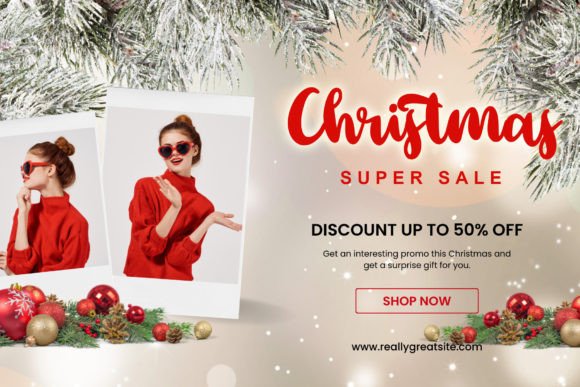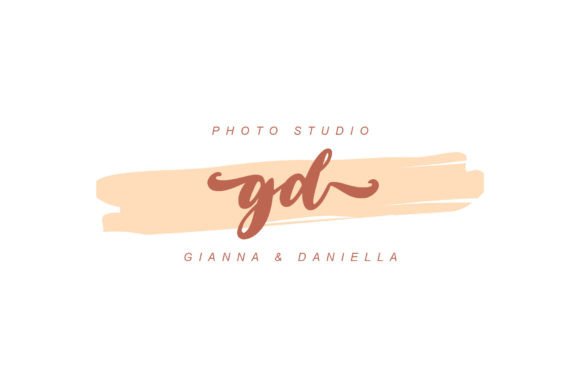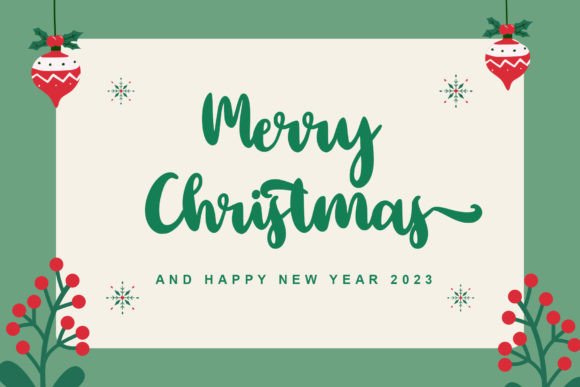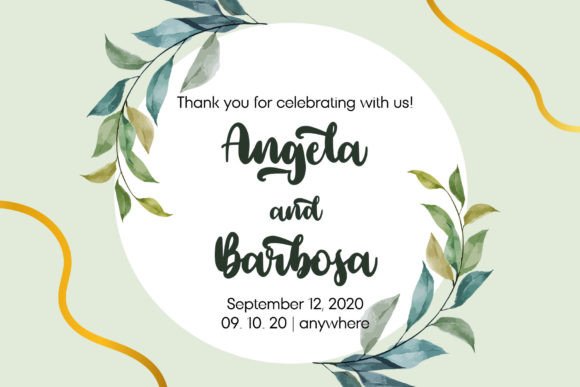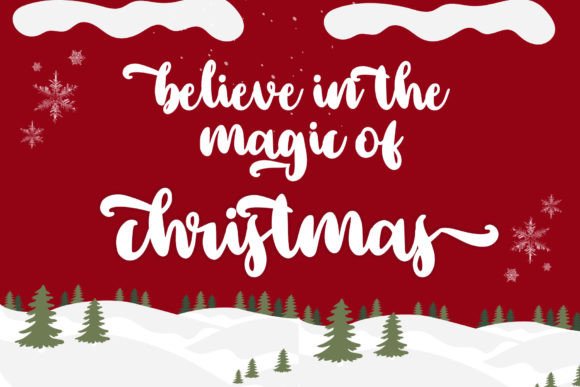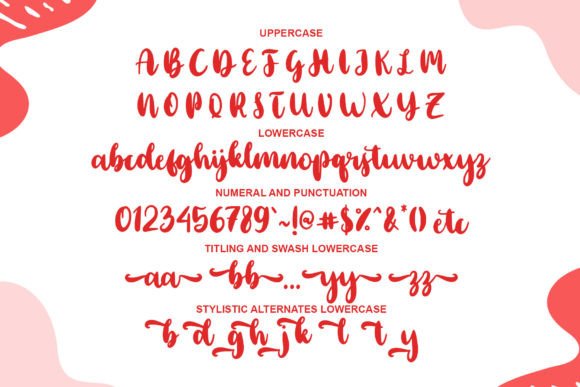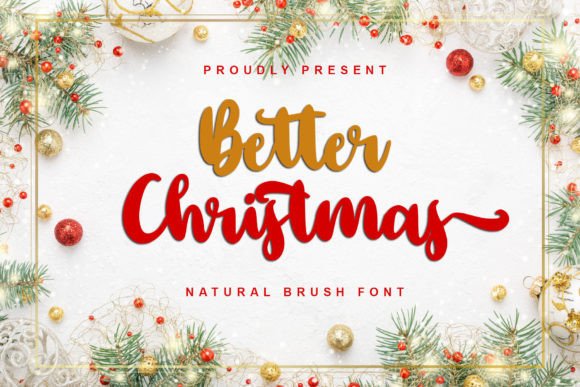
Better Christmas Font: The Ultimate Choice for Your Holiday Designs
Are you looking for a Christmas font that will make your holiday designs shine? Look no further than Better Christmas Font! This dazzling and timeless handwritten font is the perfect choice for adding a touch of festive flair to your projects. In this article, we’ll explore the features and benefits of Better Christmas Font, and why it’s a must-have for designers and crafters.
What is Better Christmas Font?
Better Christmas Font is a beautifully crafted handwritten font that captures the spirit of the holiday season. With its elegant and cursive strokes, this font is sure to add a touch of sophistication and whimsy to your designs. Whether you’re creating holiday cards, gift tags, or social media graphics, Better Christmas Font is the perfect choice.
Key Features of Better Christmas Font
- PUA Encoded: Better Christmas Font is PUA (Private Use Area) encoded, which means you can access all the glyphs and sweeps easily. This makes it simple to use and customize the font to suit your needs.
- Handwritten Style: The font features a beautiful handwritten style that is both elegant and playful.
- Timeless Design: The design of Better Christmas Font is timeless, making it suitable for use year after year.
- Versatile: The font is versatile and can be used for a variety of projects, including holiday cards, gift tags, social media graphics, and more.
Benefits of Using Better Christmas Font
So, why choose Better Christmas Font for your holiday designs? Here are just a few benefits of using this amazing font:
- Adds a Touch of Festive Flair: Better Christmas Font adds a touch of festive flair to your designs, making them perfect for the holiday season.
- Easy to Use: The font is easy to use and customize, thanks to its PUA encoding.
- High-Quality Design: The font features a high-quality design that is sure to impress.
- Saves Time: With Better Christmas Font, you can create professional-looking holiday designs in no time.
Tips and Tricks for Using Better Christmas Font
Here are a few tips and tricks for getting the most out of Better Christmas Font:
- Experiment with Different Sizes: Try out different font sizes to see what works best for your design.
- Combine with Other Fonts: Combine Better Christmas Font with other fonts to create a unique and eye-catching design.
- Use for Branding: Use Better Christmas Font for your holiday branding, including social media graphics and website headers.
- Make it Your Own: Customize the font to suit your needs, using the glyphs and sweeps provided.
Better Christmas Font is a must-have for designers and crafters looking to add a touch of festive flair to their holiday designs. With its elegant and cursive strokes, PUA encoding, and timeless design, this font is sure to become a favorite. Whether you’re creating holiday cards, gift tags, or social media graphics, Better Christmas Font is the perfect choice. So why wait? Download Better Christmas Font today and start creating amazing holiday designs!